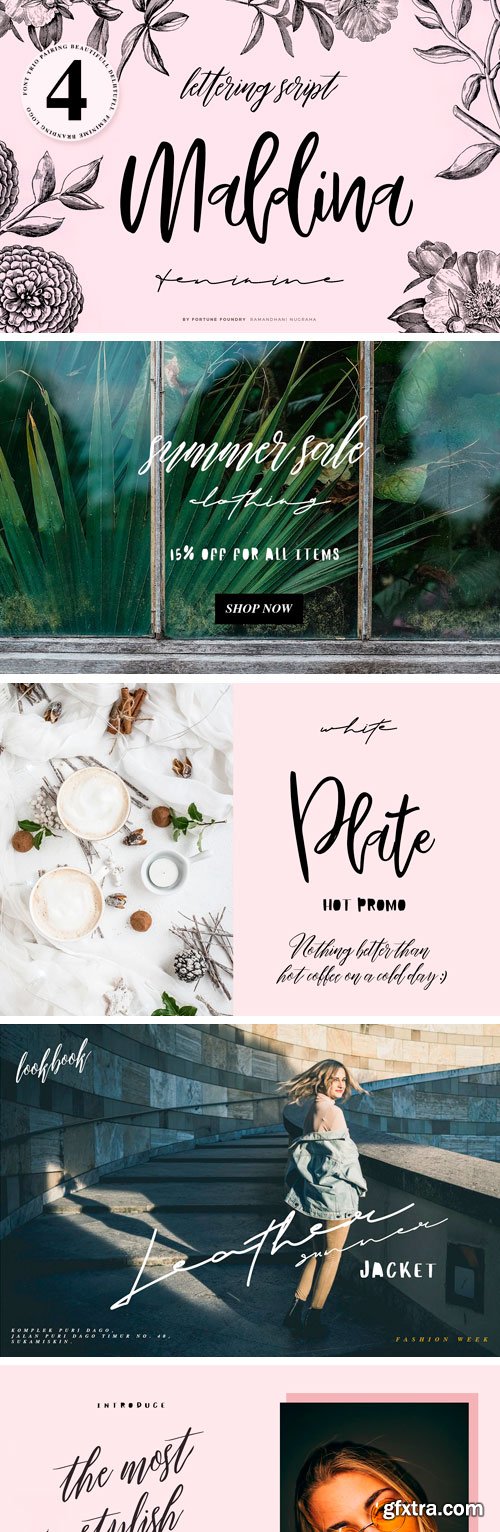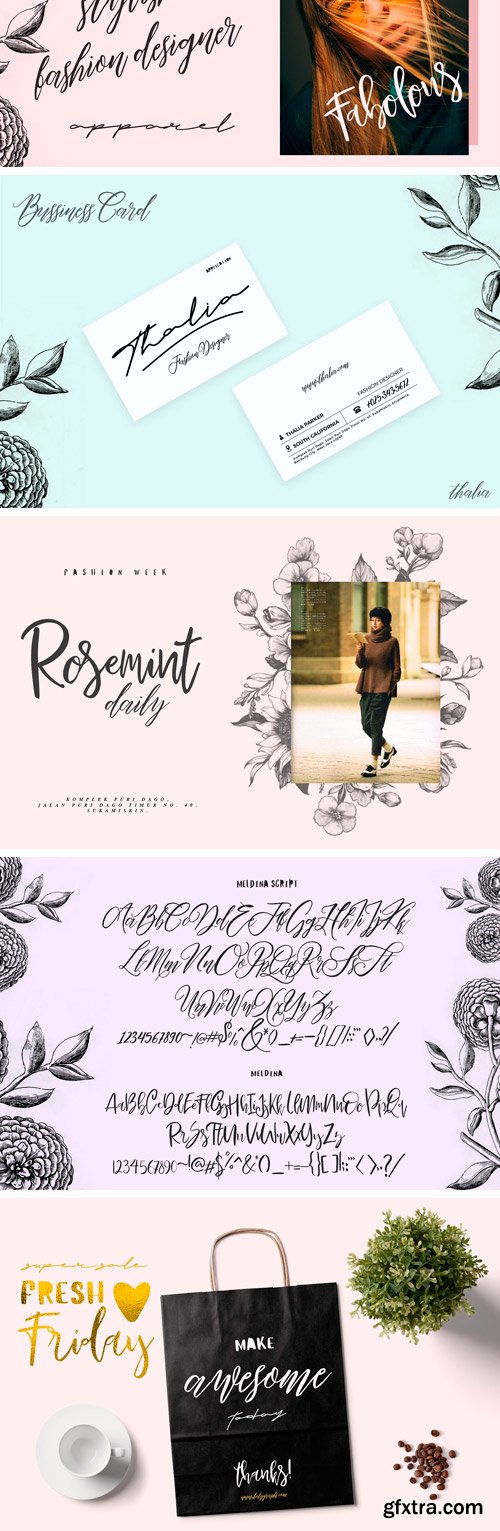
Maldina handmade typeface is font pairing categories, they made from handmade method, it is perfect for branding, event, invitation card, gift promo card, Quote, Poster, Signature name card, lovely instagram posts, and many more.